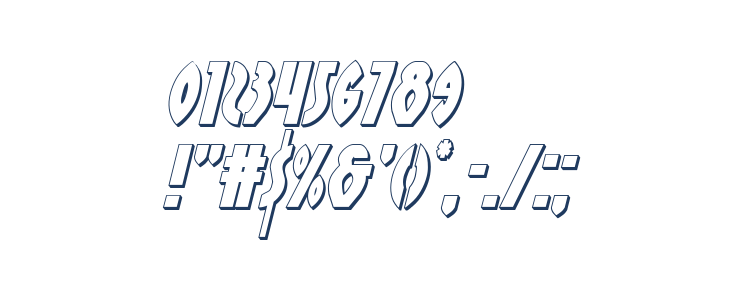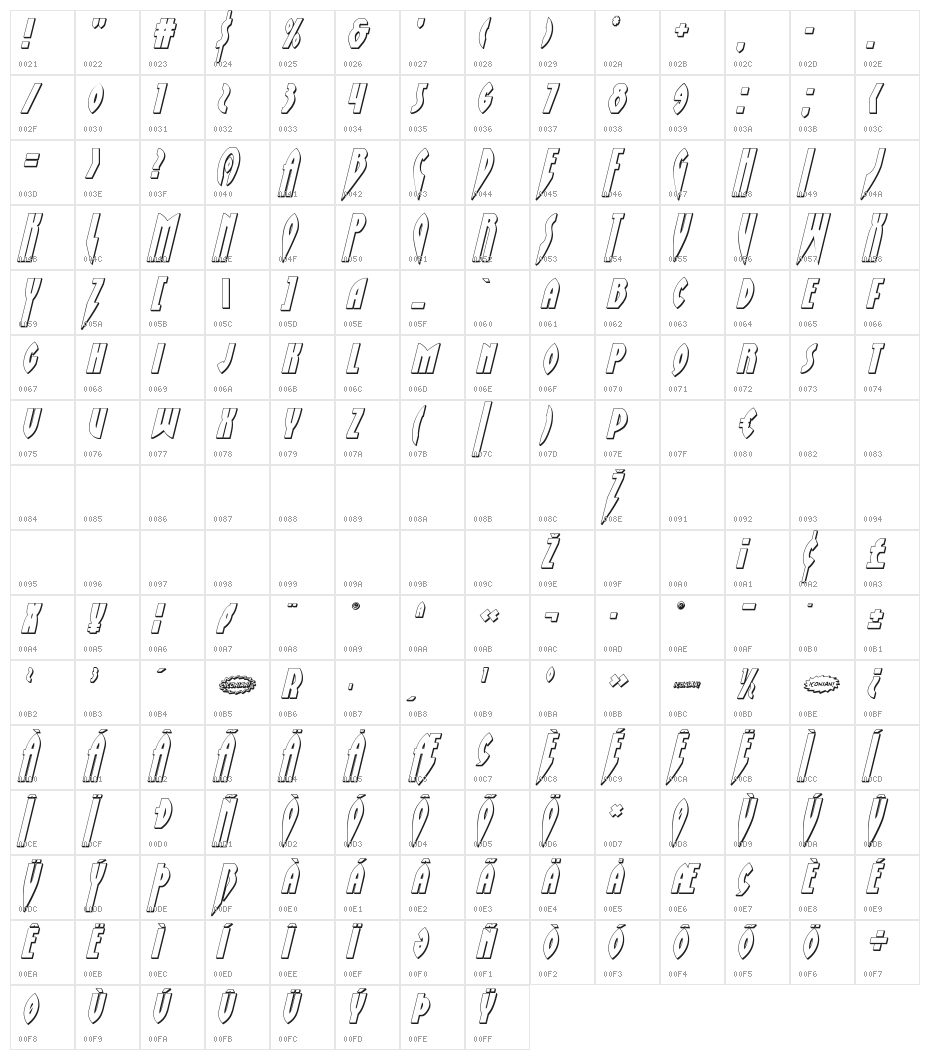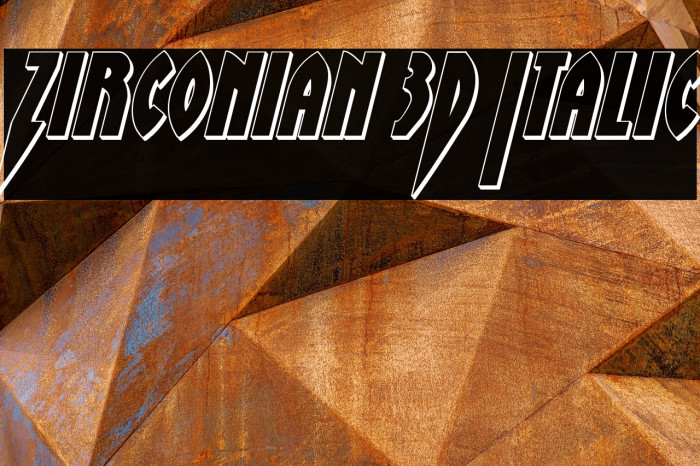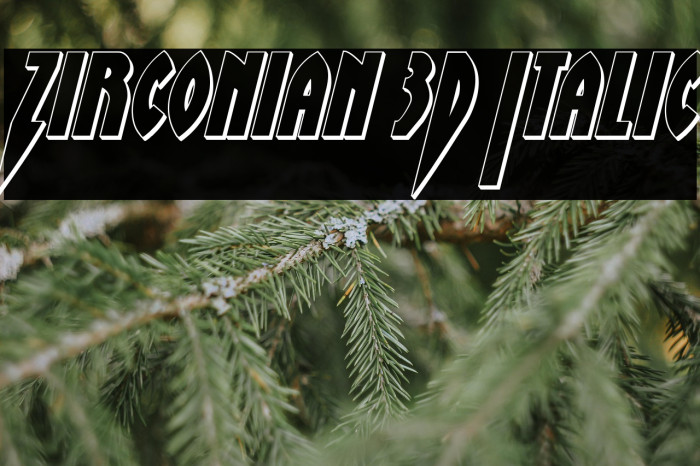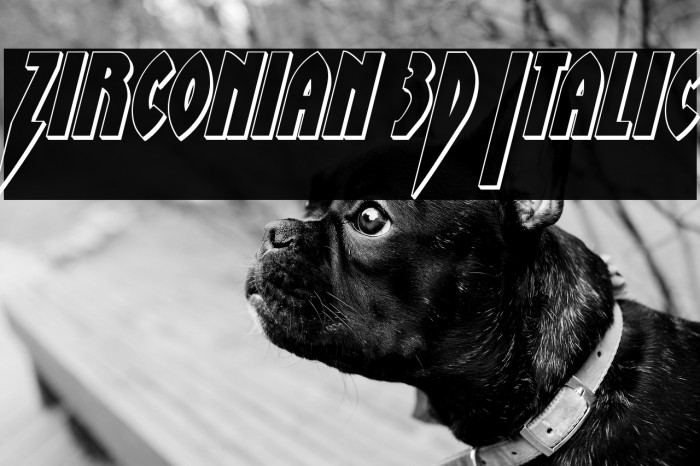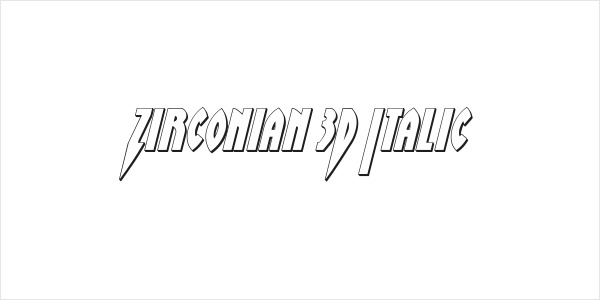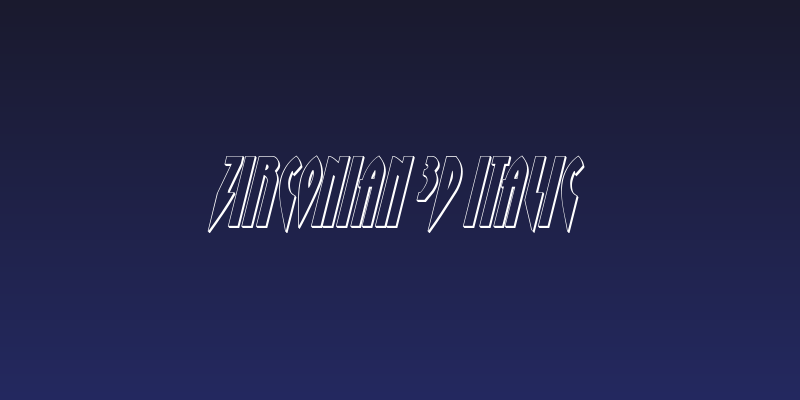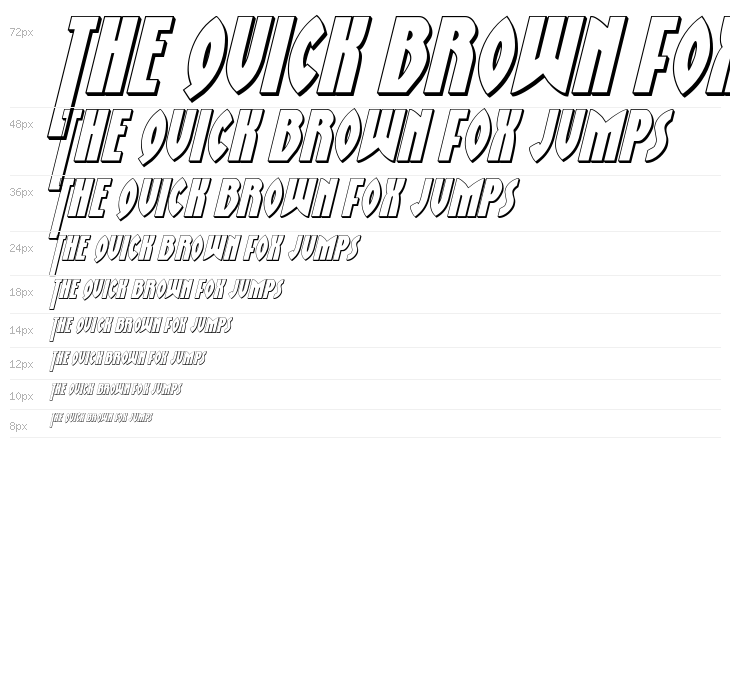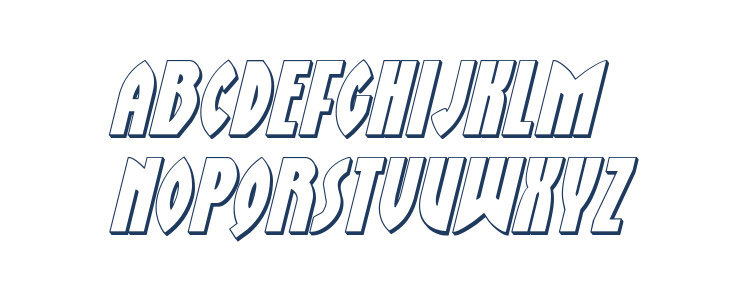
Zirconian 3D Italic Font
Zirconian 3D Italic Description
This font features a bold, three-dimensional design with a strong italic slant, giving it a dynamic and futuristic appearance. The characters are outlined, creating a shadow effect that enhances the 3D illusion. The uppercase letters are prominent and angular, while the lowercase letters maintain a consistent style, ensuring readability. The numbers and special characters follow the same bold and italicized design, making them stand out. This font is ideal for projects that require a modern and eye-catching look.